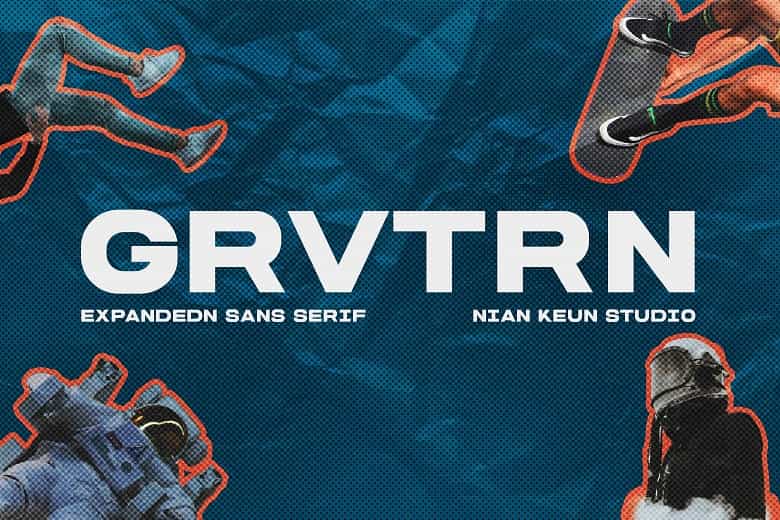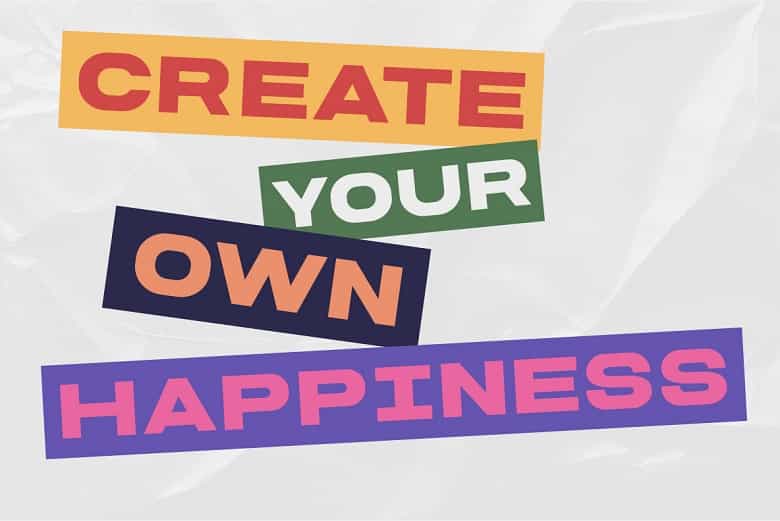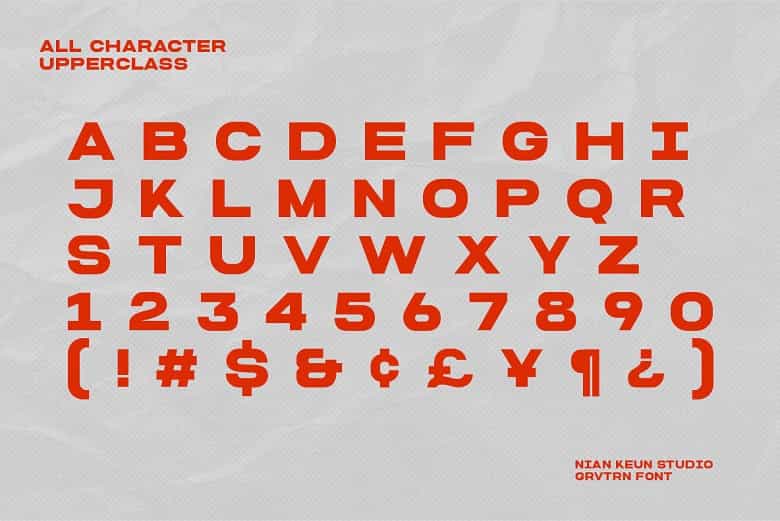
Grvtrn an extended sans serif font of current times with simple aesthetics and a touch of modernity. As a font that embodies the design fad of 2024, Grvtrn has a simple and unadorned design with large, wide and thick letters. This font is about being as loud as possible while still being as simple as possible.